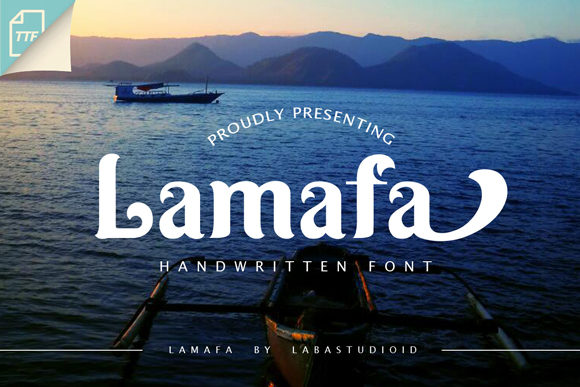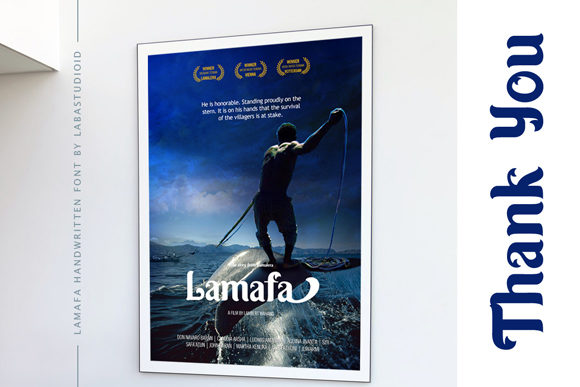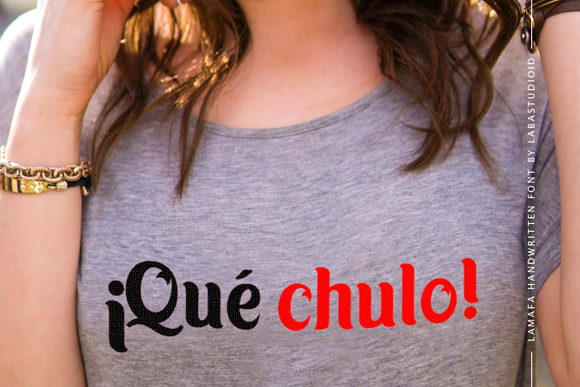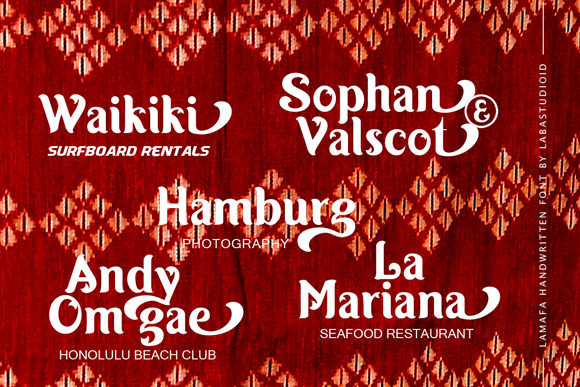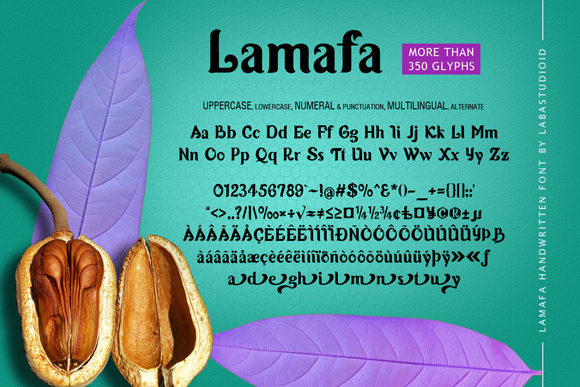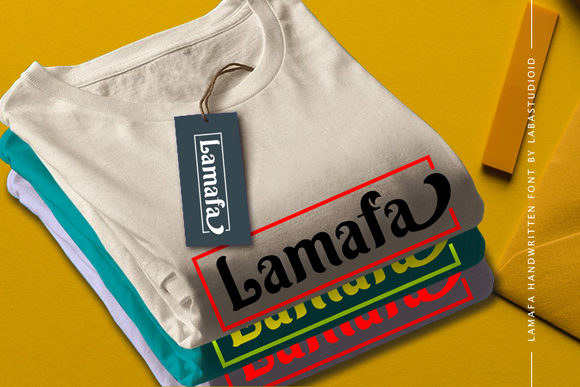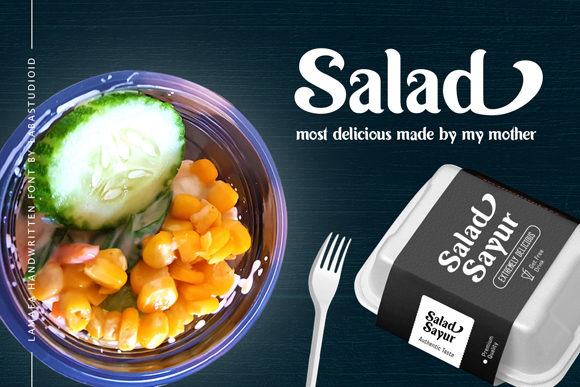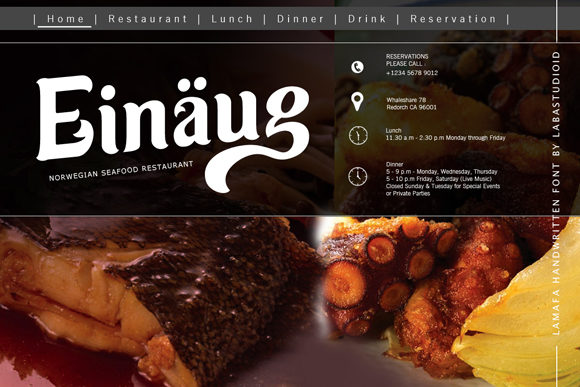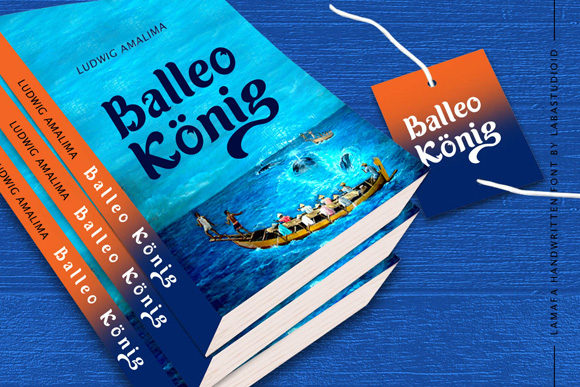
Lamafa Font
About Lamafa Font
Lamafa is a bold handwritten font, carefully handcrafted to become a true favorite. This font will look outstanding in any context, whether it’s being used on busy backgrounds or as a standalone headline!